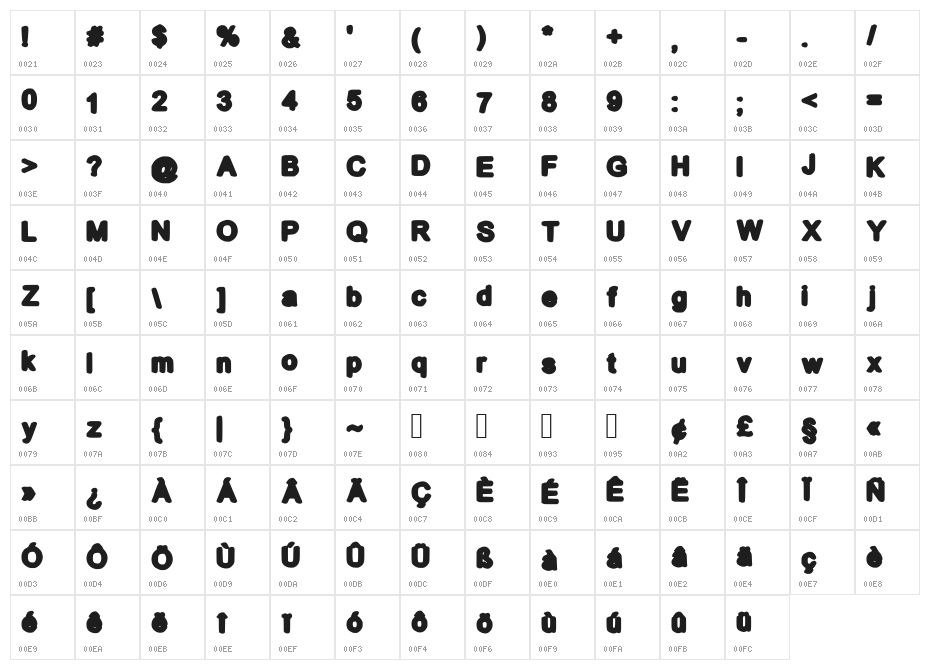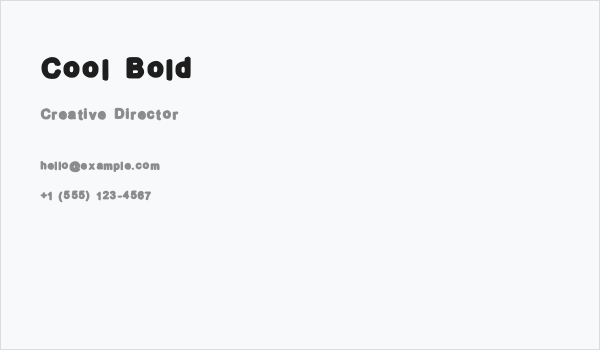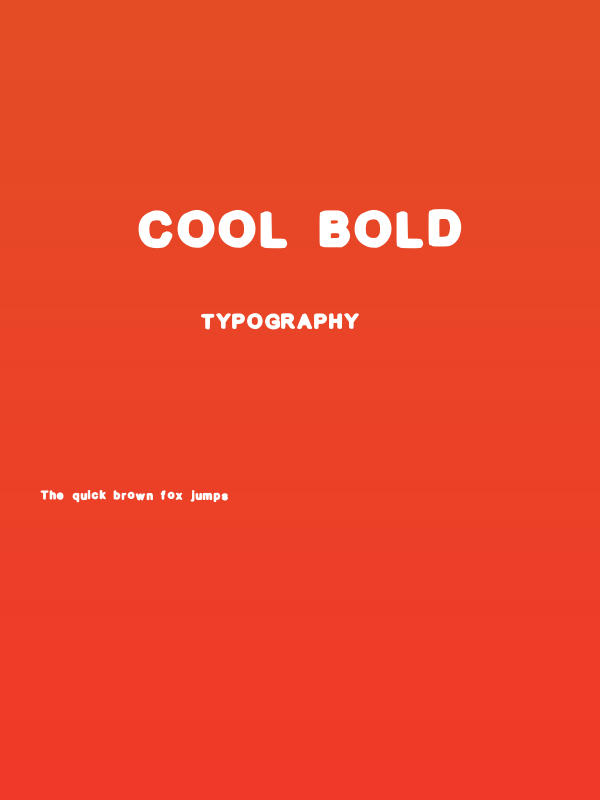
Cool Bold Font
| Stile generale | Playful, Friendly |
| Progetti proposti | Ideal for children's books, playful branding, posters, and social media graphics. |
Cool Bold